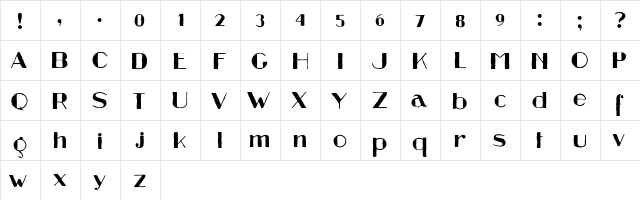
Cord Blood Regular
Design Context for Cord Blood Typeface
Cord Blood leans into the macabre with letterforms designed to disturb and intrigue in equal measure.
Ideal for Halloween projects, horror film titles, haunted house signage, and dark editorial design.
Font Pairing: Pair with a clean neutral sans-serif for body copy to let Cord Blood's character lead without overwhelming the composition.
Pro Tip: Cord Blood works best as a headline or focal element. Pair it against plain, neutral body text to amplify the contrast.